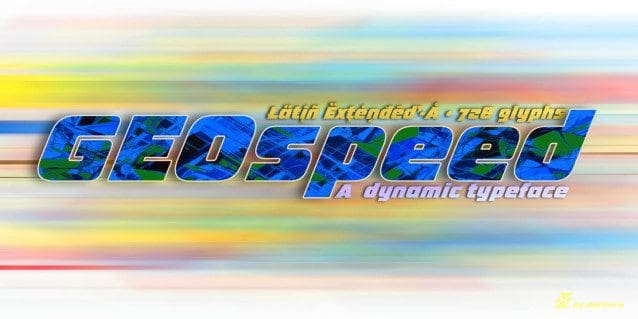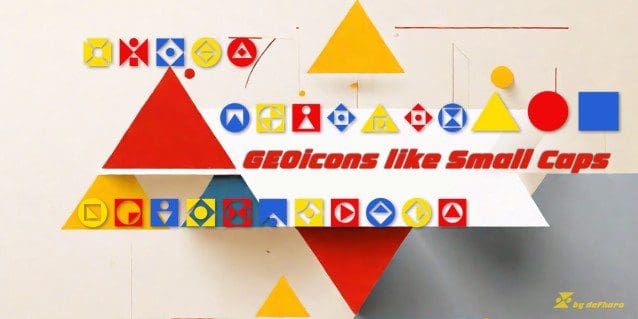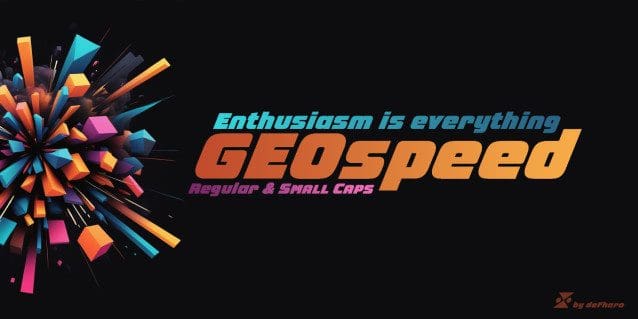
GEOspeed 2 Font
GEOspeed 2 Font – GEOspeed Regular is an innovative typeface, sans serif geometry and a 22 degree slope, includes alternative letters and geometric icons, GEOspeed fuses solidity with boldness.
Ideal for advertising, posters or banners, it stands out for its modernity and movement. Advanced Open Type features allow for precise control, while different sets of numbers and letters offer endless creative possibilities.